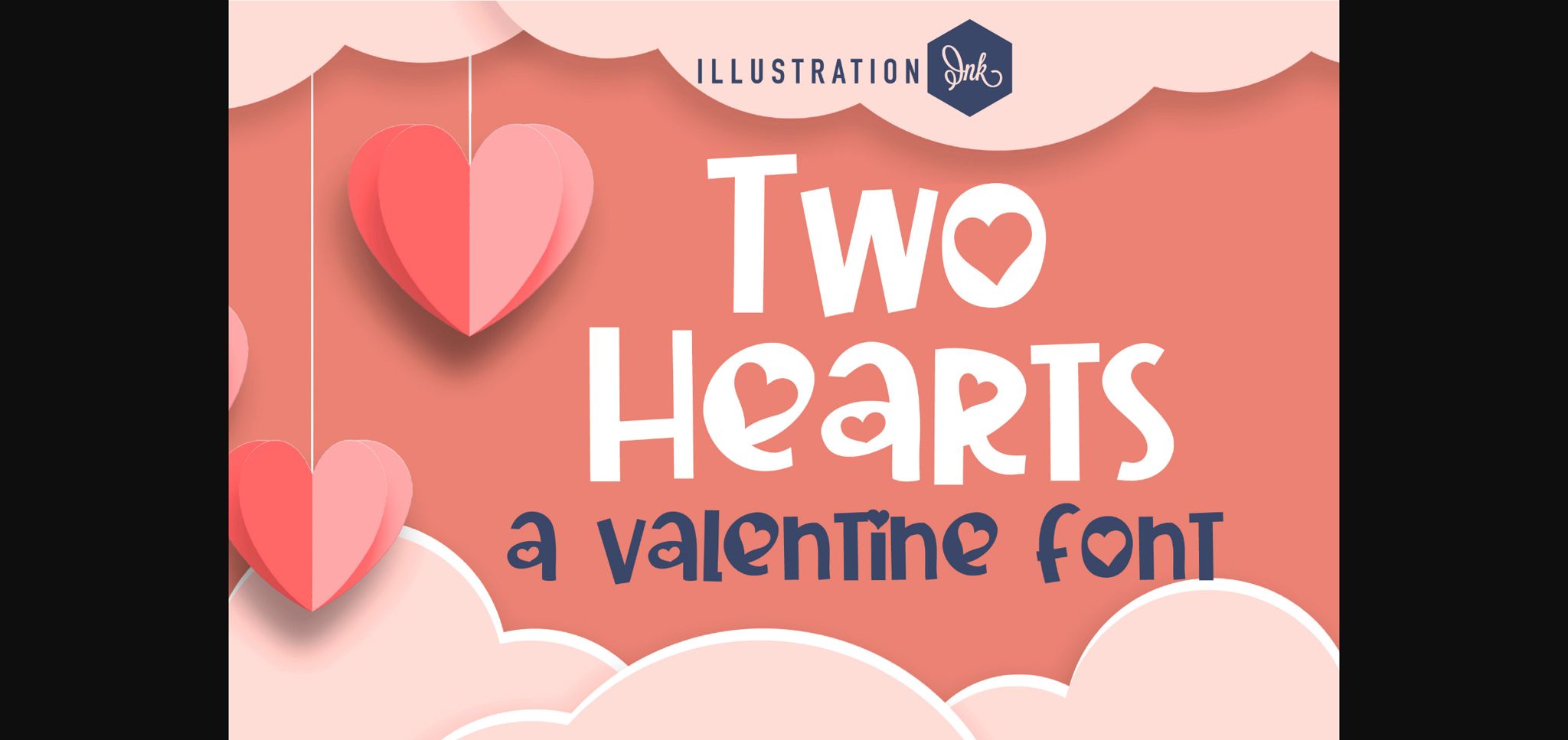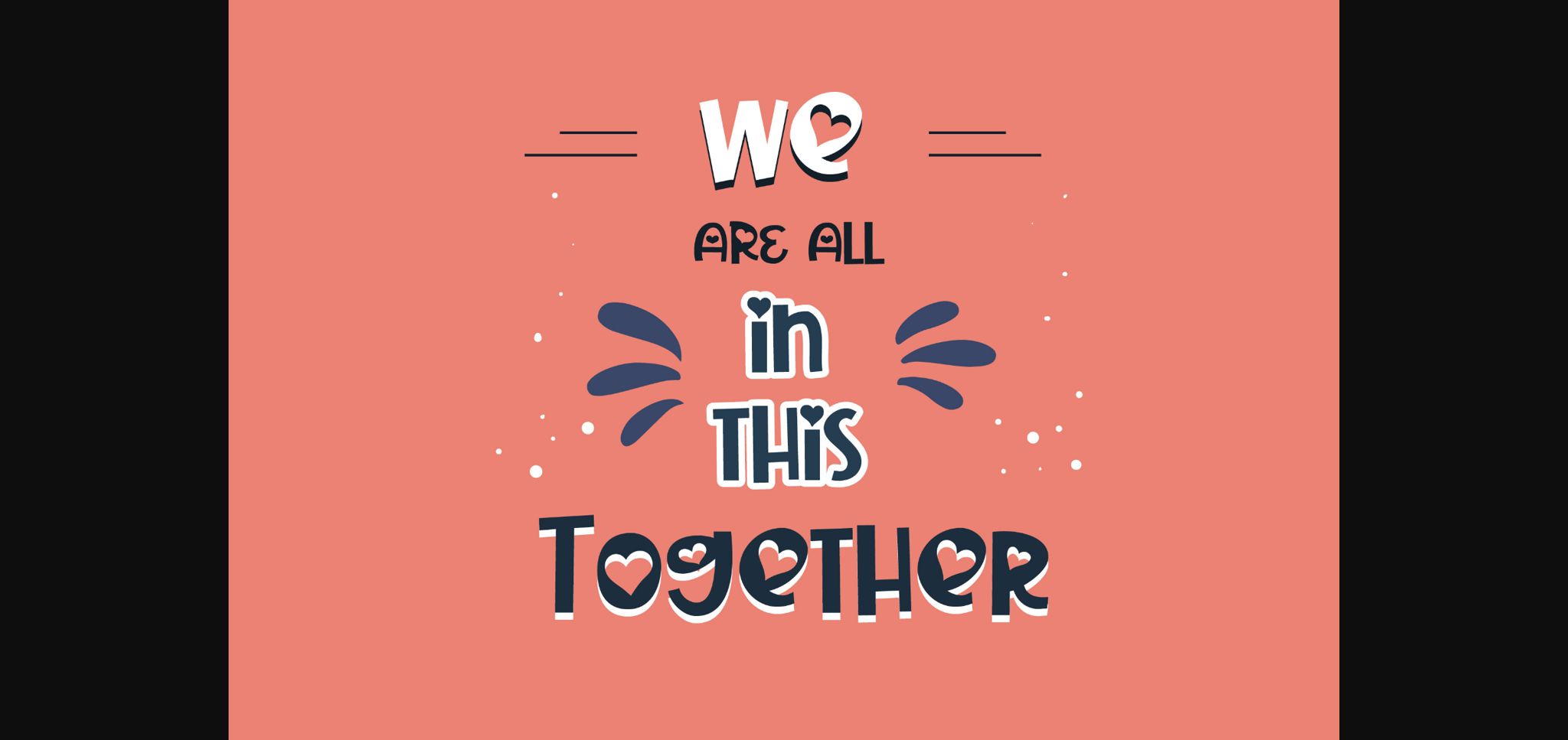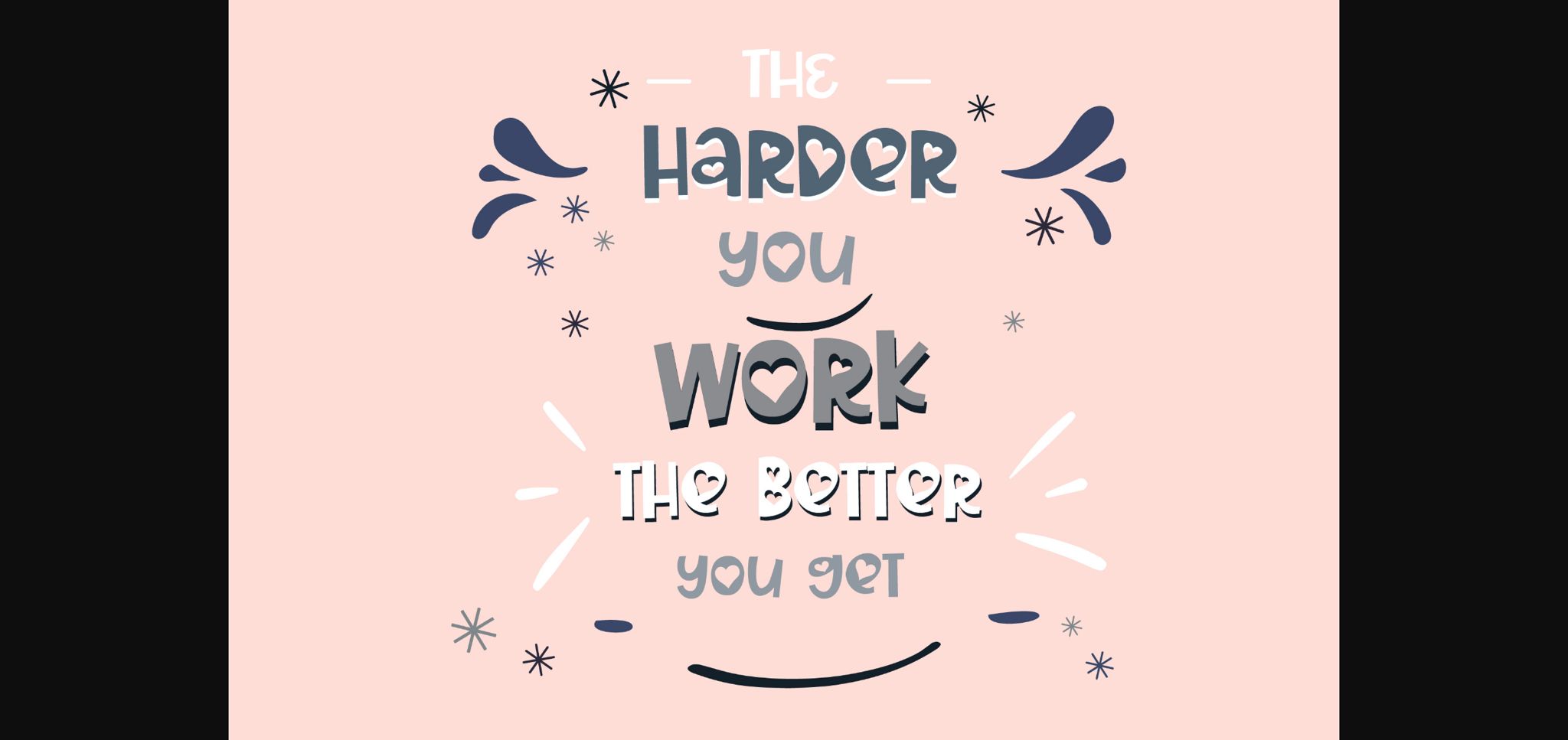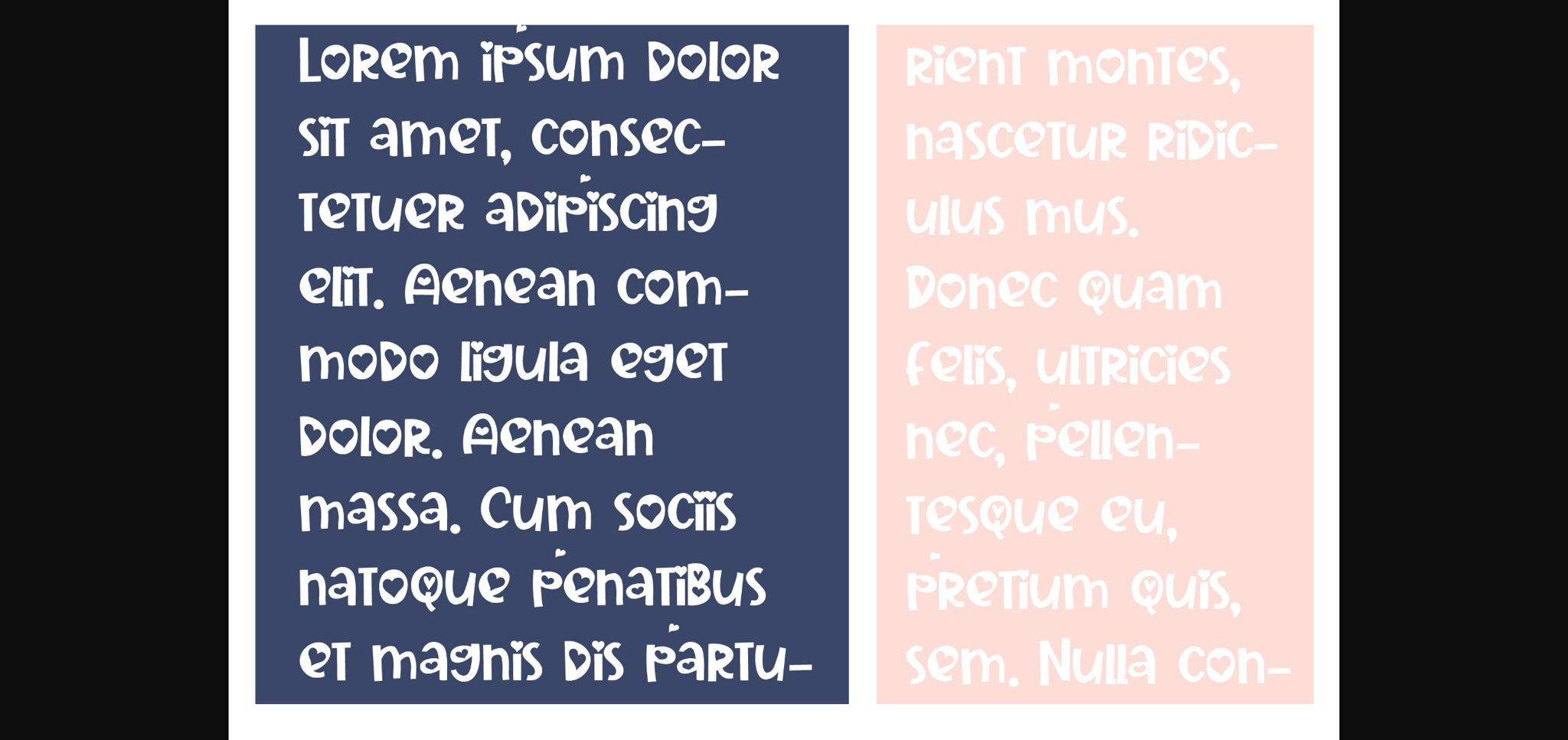
About Two Hearts Font
This hand-crafted font is a youthful sans with hearts throughout. No matter the topic, this font will be an incredible asset to your fonts’ library, as it has the potential to elevate any creation.